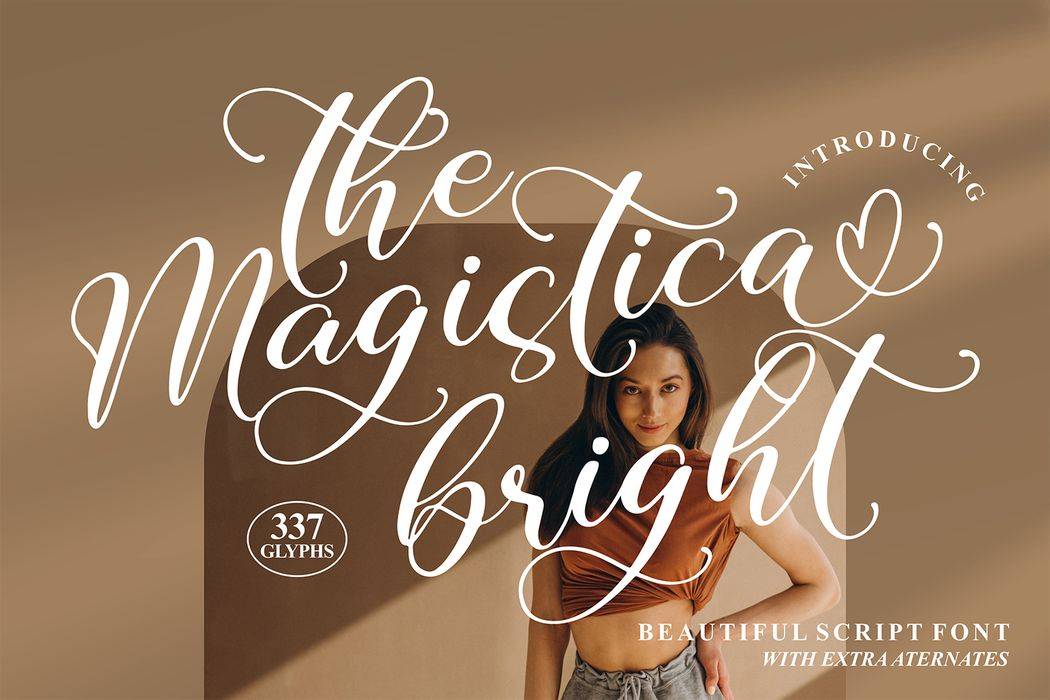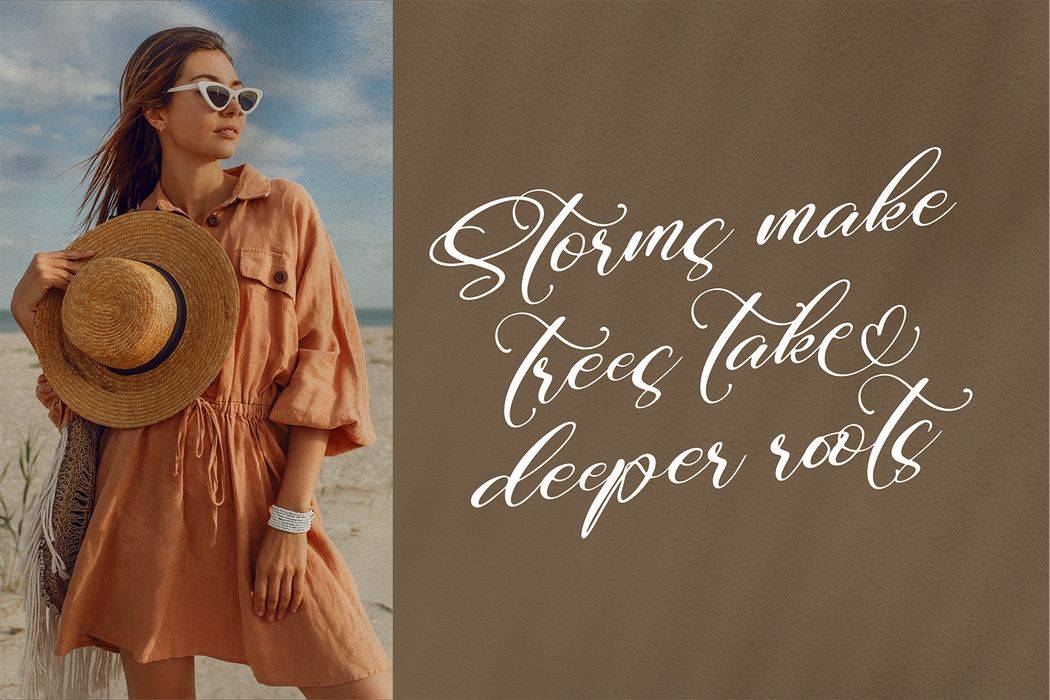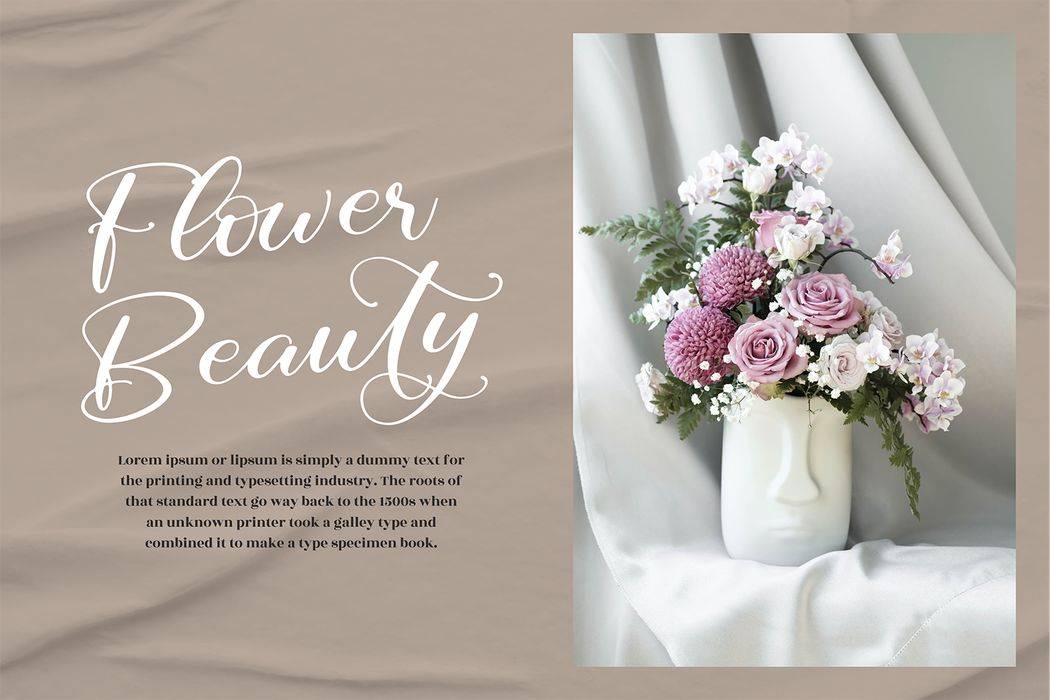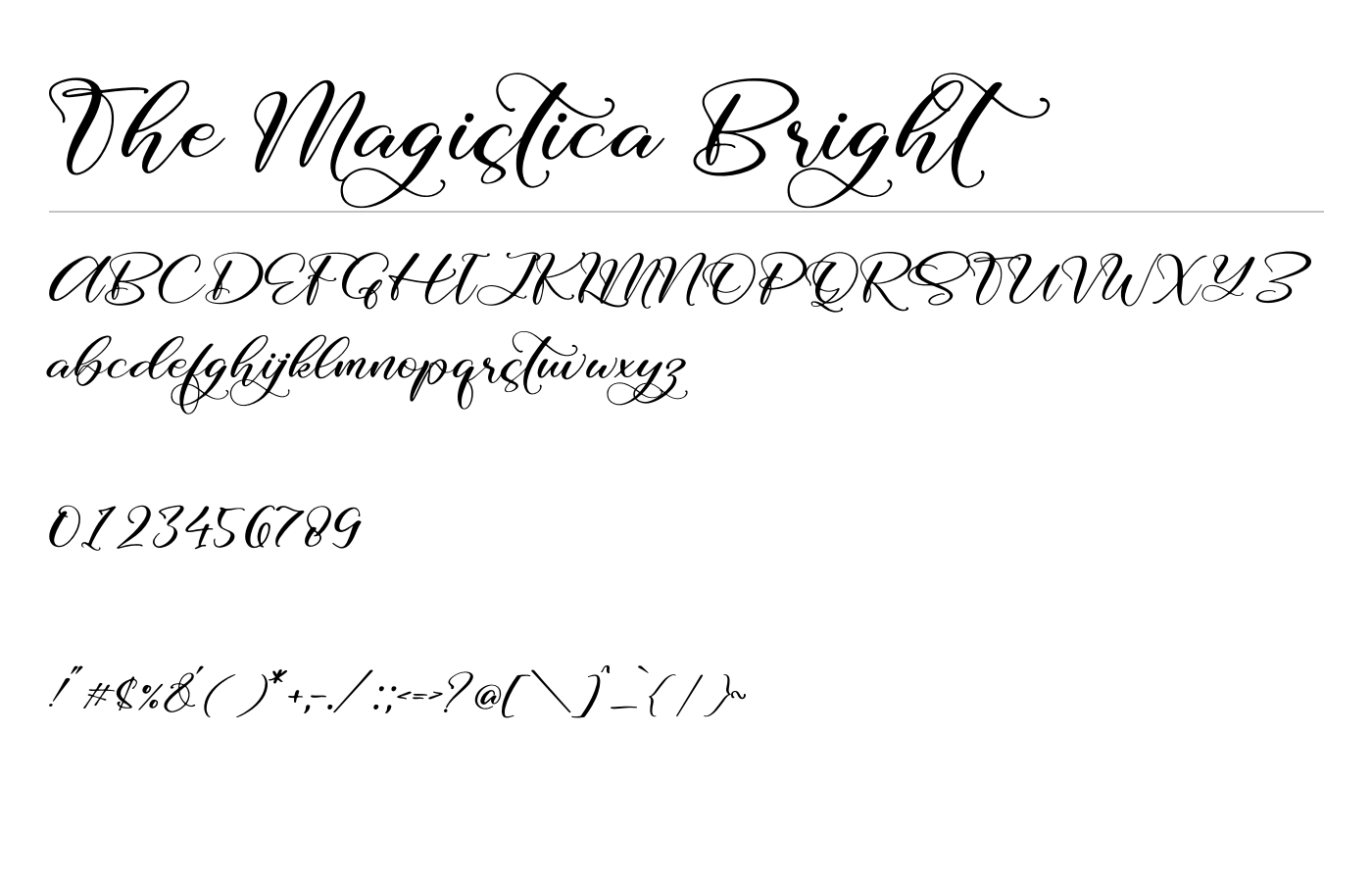
The Magistica Bright font is an elegant, flowing script with delicate, decorative swashes and smooth strokes, giving it a graceful and romantic feel. Its light weight, high contrast, and intricate letterforms make it perfect for sophisticated branding, wedding invitations, and luxury packaging where a refined, artistic touch is desired. This font shines in contexts that call for a stylish, feminine, and expressive look.
The Magistica Bright Font
About The Magistica Bright Font